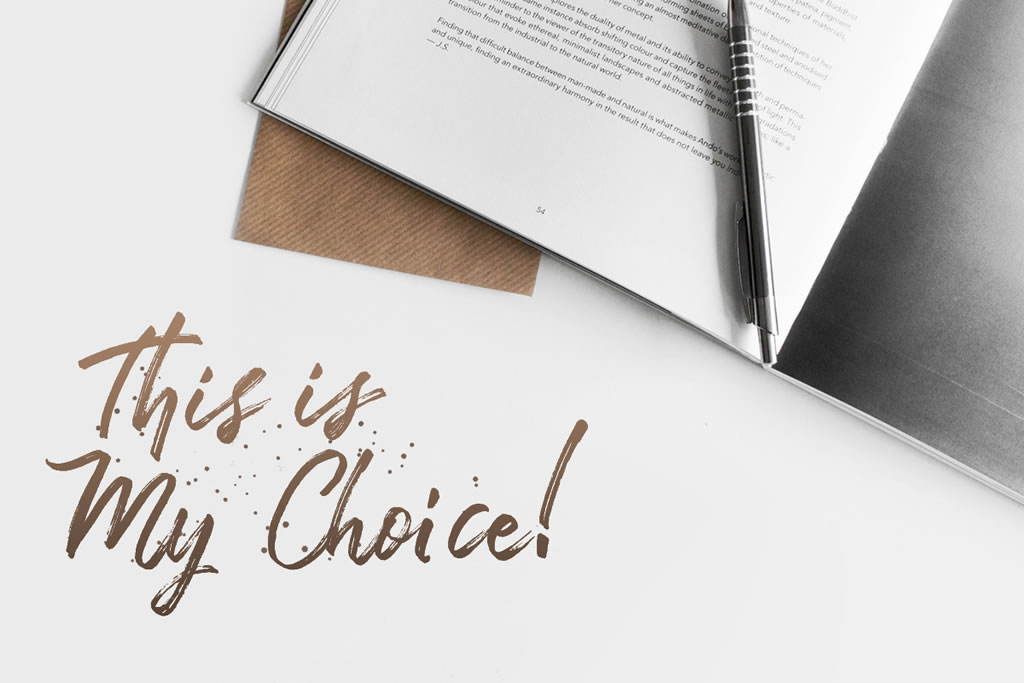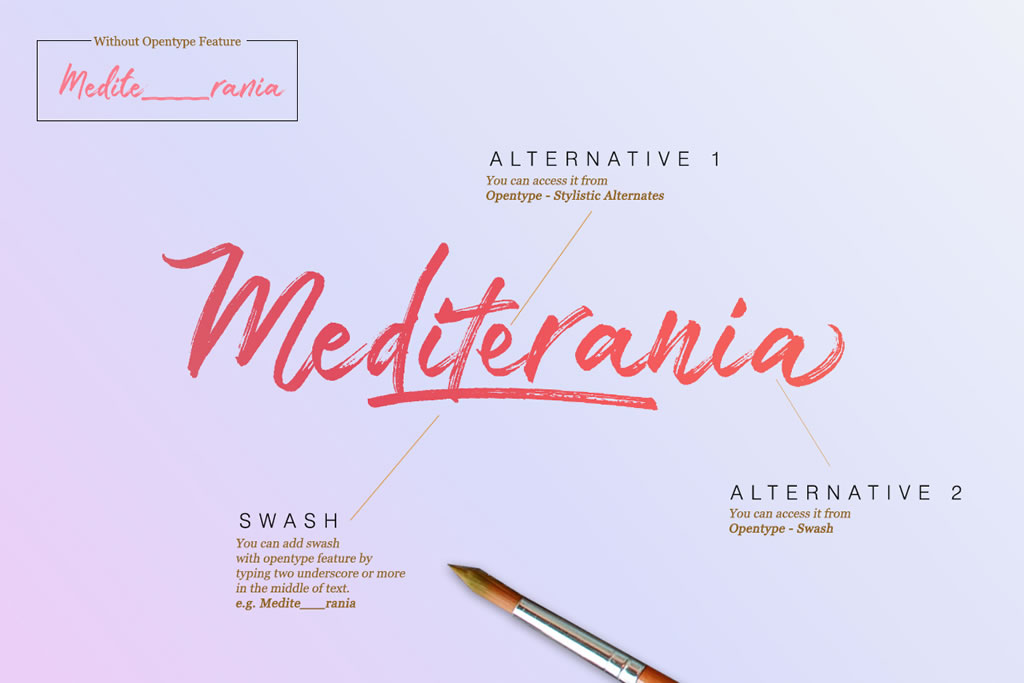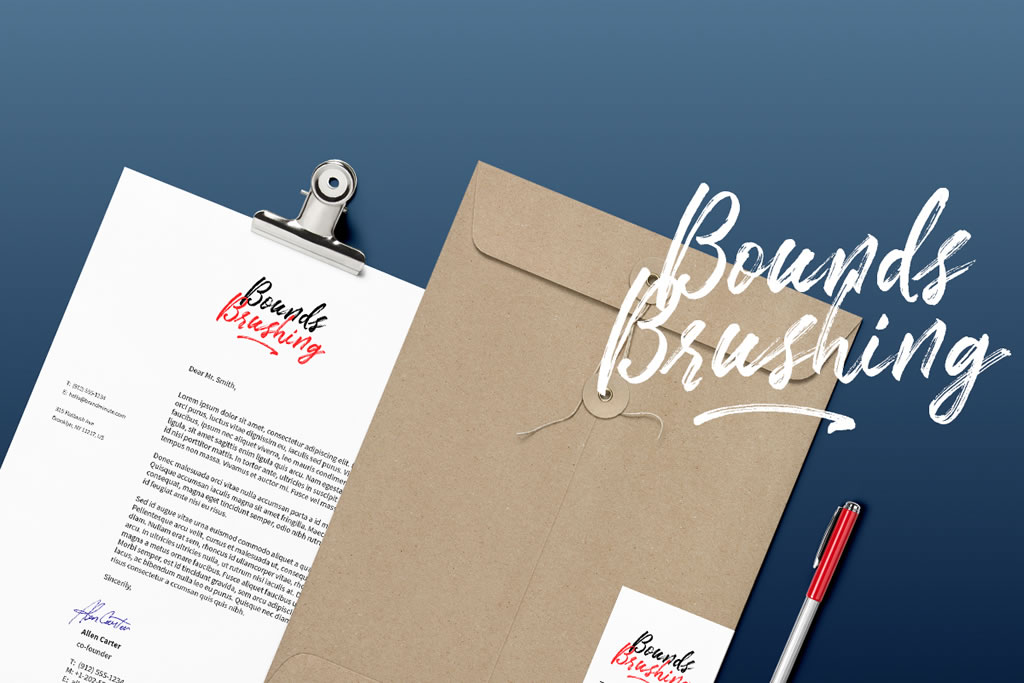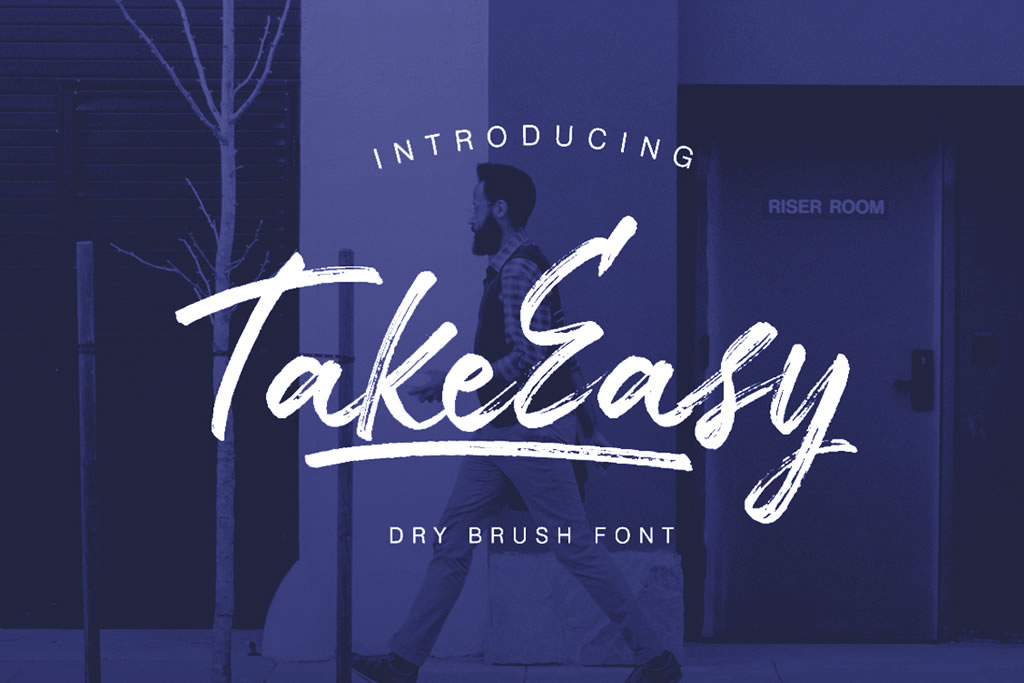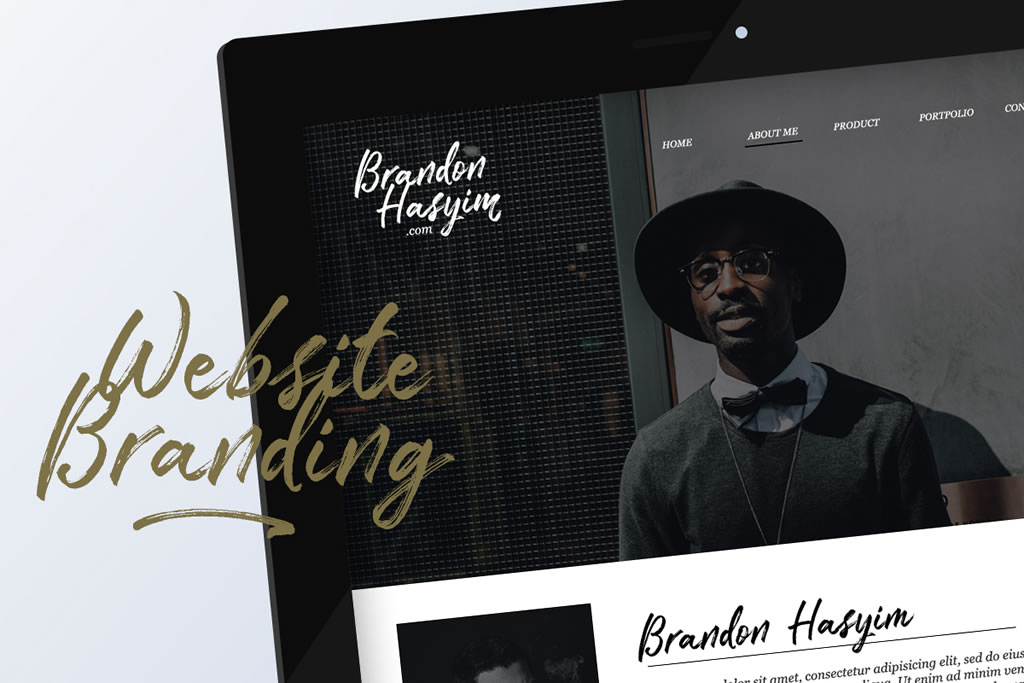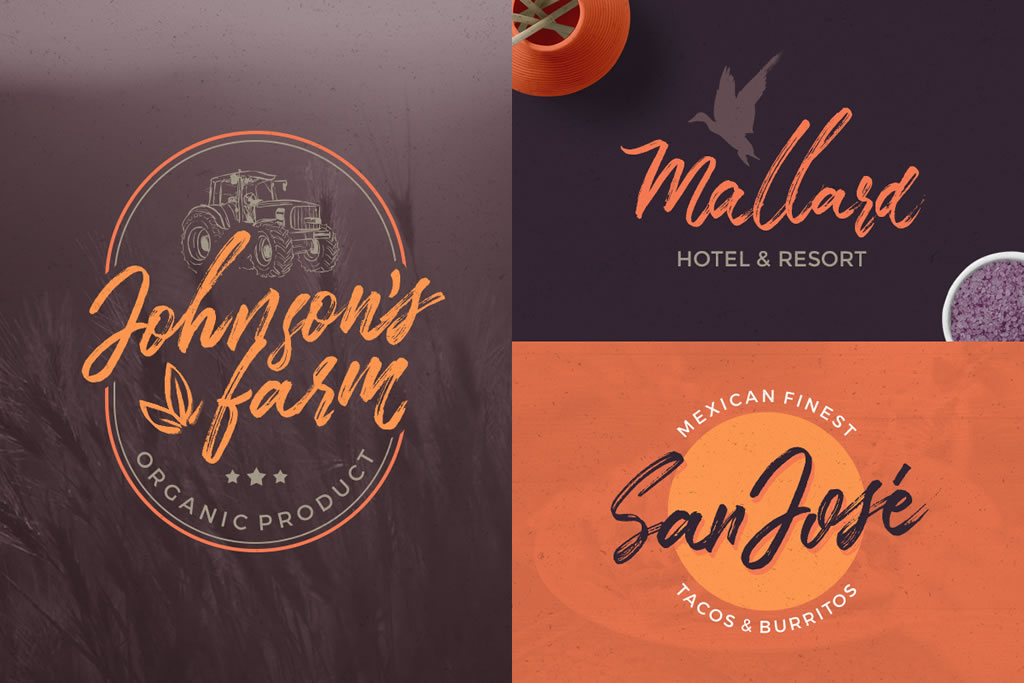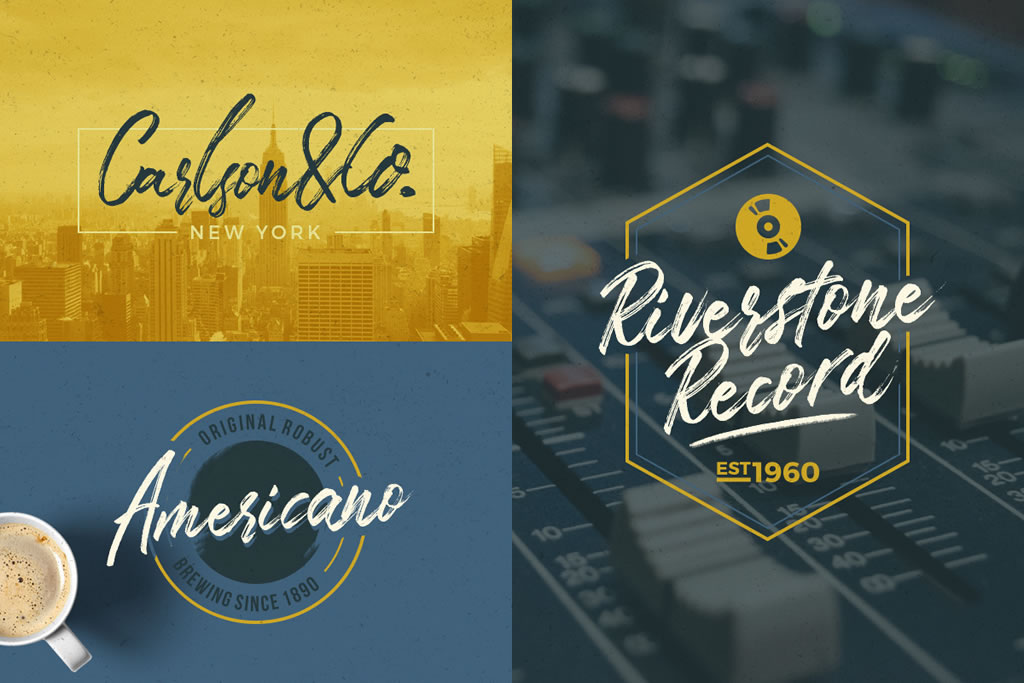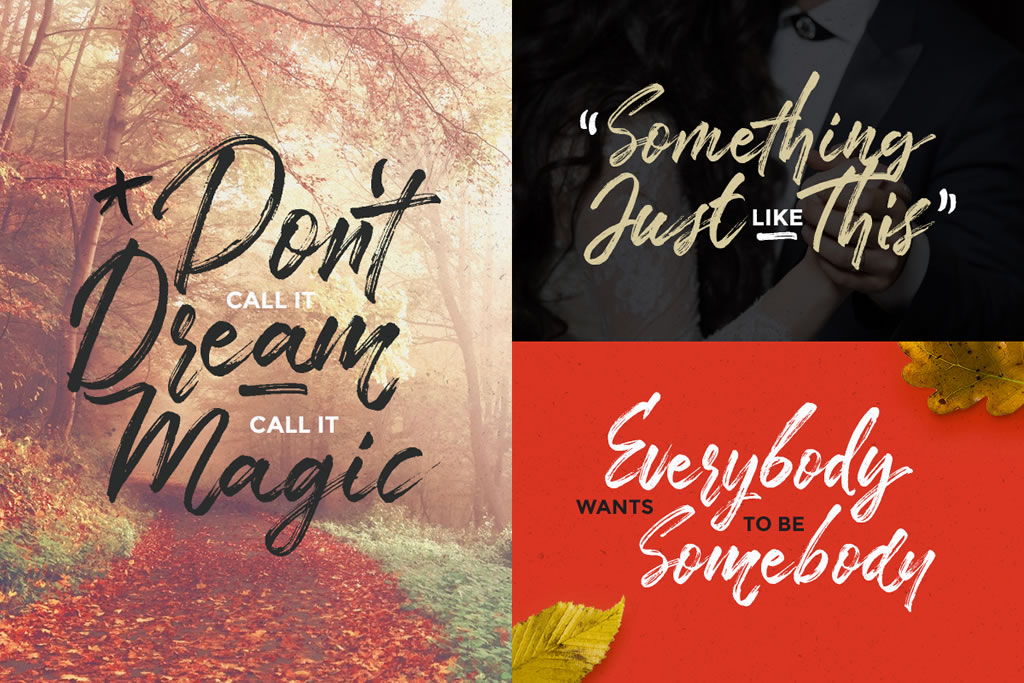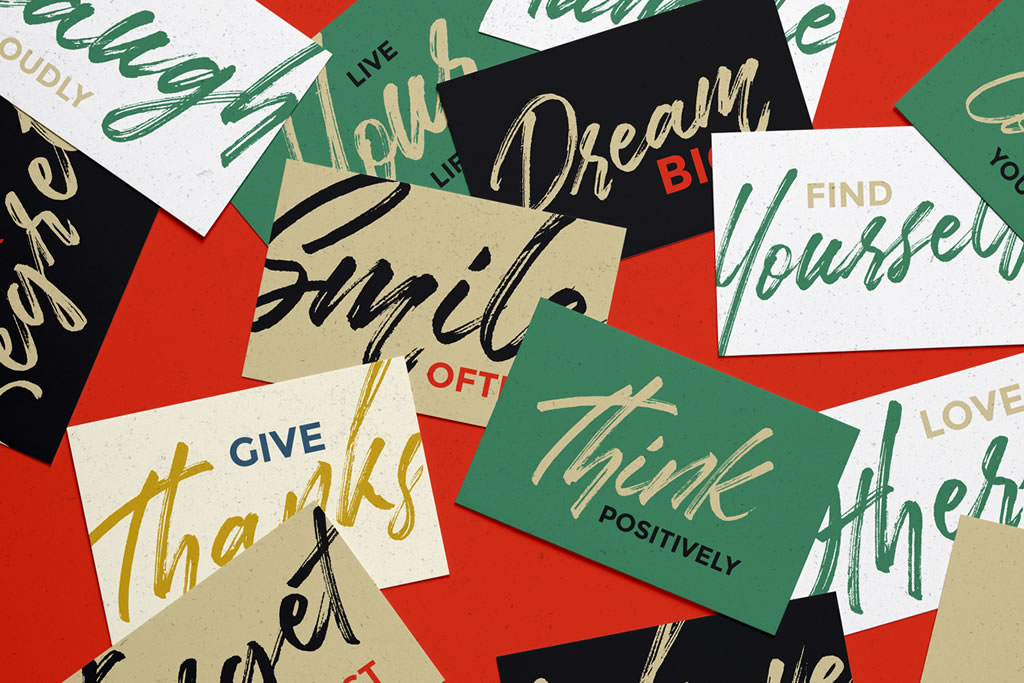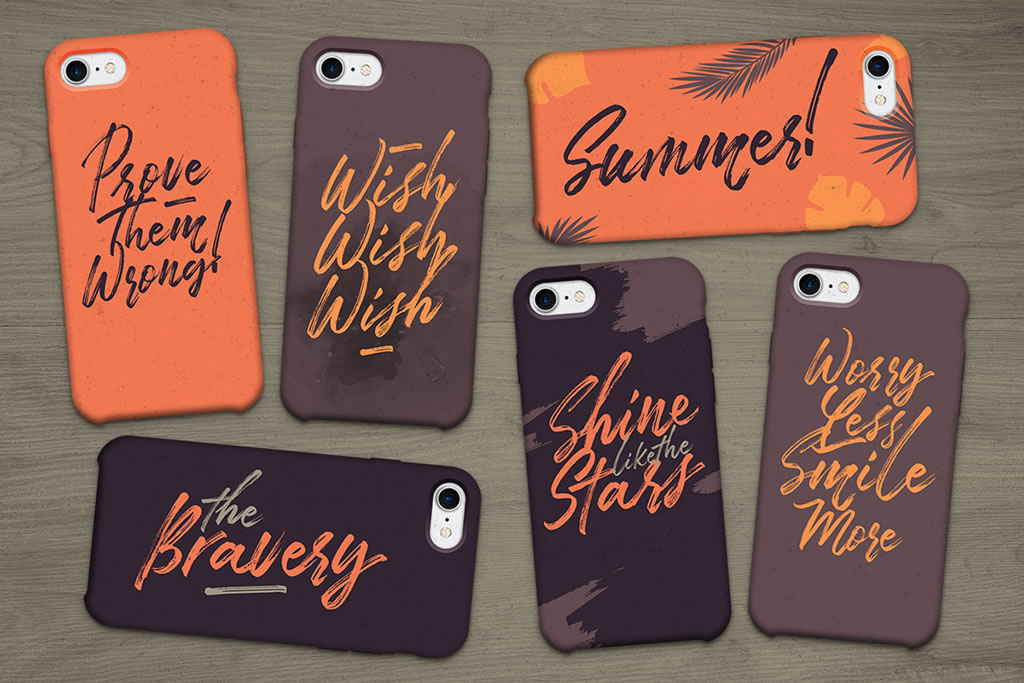
HomeScript FontsTake Easy Font Script Fonts Take Easy Font FacebookXPinterestWhatsApp Take Easy Font Poster 2 Take Easy Font Poster 3 Take Easy Font Poster 4 Take Easy Font Poster 5 Take Easy Font Poster 6 Take Easy Font Poster 7 Take Easy Font Poster 8 Take Easy Font Poster 9 Take Easy Font Poster 10 Take Easy Font Poster 11 Take Easy Font Poster 12 Take Easy Font Poster 13 Take Easy Font Poster 14 About Take Easy Font Take Easy is a manually made brush font. Great for adding a personal touch to your designs. DOWNLOAD NOW People also explored Sanestu Font Mystique Font Minimalist Vintage Font PN Kerplunk Font Sunshine Font Ikhlas Font Svarge Font Rahman Font Kalamata Font 311 0 TagsTake Easy Font Previous articleRetano Script FontNext articleRetrology Font LEAVE A REPLY Cancel reply Comment: Please enter your comment! Name:* Please enter your name here Email:* You have entered an incorrect email address! Please enter your email address here Website: Save my name, email, and website in this browser for the next time I comment. Personal Use Free Sunflower Personal Use Free Read more about this font Hollster Personal Use Free Read more about this font Color Personal Use Free Read more about this font Mowgli Personal Use Free Read more about this font BLOG Modern Sans-Serif Fonts That Brands Love in 2025 In 2025, modern sans-serif fonts remain a top choice for brands looking to project clarity, professionalism, and... Elegant Wedding Invitation Fonts – Handwritten & Script Fonts To increase your work productivity, choose the most readable fonts. Transform Your Website: Elevate Your Typography with 7 Best Web Font Generators